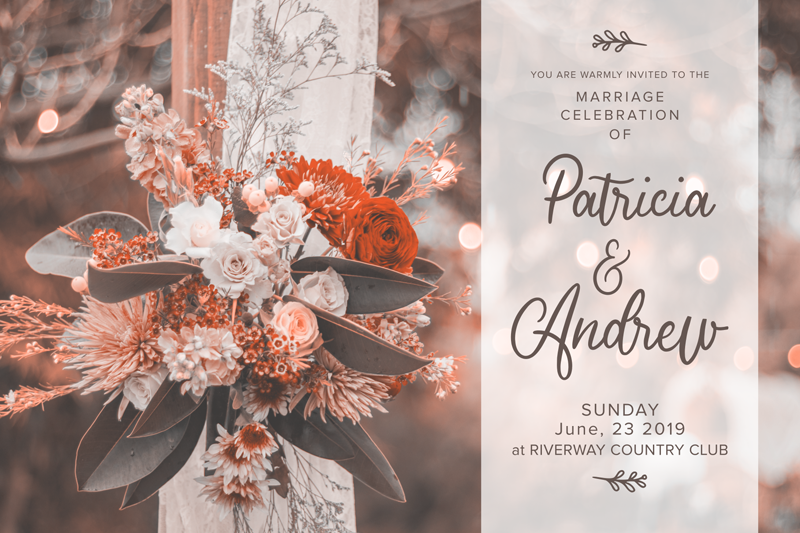
Font name: | Cherishia |
Author: | LetterStuff Typefoundry |
Introducing � Cherishia Romantic Script � an adorable handlettering calligraphy typeface with cursive style. Perfect for adding a fresh & unique look to company branding, logos, greetings, magazine layout, homeware, prints and invitations. Please note : This demo font is ONLY FOR PERSONAL USE For commercial purpose and full version , get it here : https://crmrkt.com/95lKem or contact me via message |